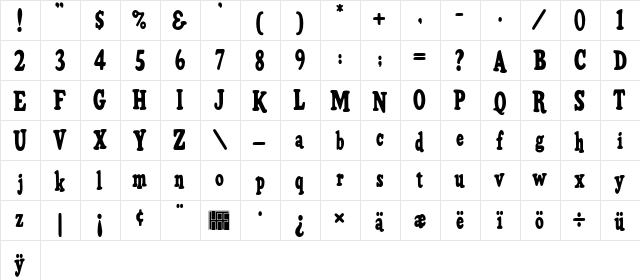
HFF Pure Vain Regular
Design Context for HFF Pure Vain Typeface
HFF Pure Vain takes a measured approach to typography — its balanced proportions and neutral character make it a reliable workhorse for both digital and print work.